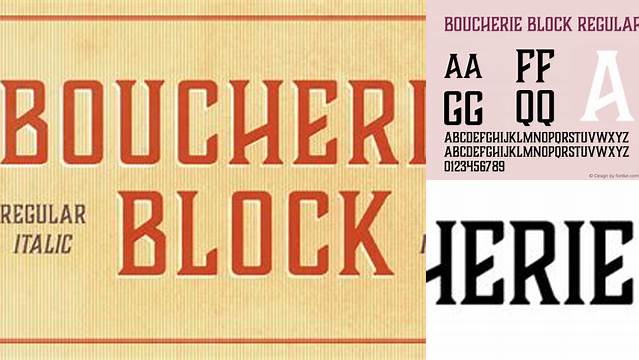
Boucherie Block: Your Free Font Guide!
Hey guys! Ever stumbled upon a font that just clicks? That's how I felt when I first saw Boucherie Block. It's bold, it's versatile, and the best part? You can often find a regular version for free! Let's dive into everything Boucherie Block, from its uses to where you can snag it without breaking the bank. Get ready to level up your design game!
Boucherie Block Font Family
The Boucherie Block font family is more than just a single typeface; it's a carefully crafted collection designed to offer versatility and visual impact. Each member of the family brings its own unique flavor to the table, allowing designers to choose the perfect style for their specific needs. Think of it as a complete toolkit for typography.
Weights and Styles
Within the Boucherie Block family, you'll typically find a range of weights, from light and regular to bold and extra bold. This variety allows you to create visual hierarchy and emphasis within your designs. Imagine using the light weight for body text in a brochure and the bold weight for headlines – instantly, you've created a dynamic and engaging layout. Beyond weights, you might also encounter different styles like italic or condensed versions, further expanding your creative options. For example, the italic style can add a touch of elegance or urgency, while the condensed version is perfect for fitting more text into a limited space.
Design Applications
The versatility of the Boucherie Block font family makes it suitable for a wide array of design applications. Its strong and legible letterforms are ideal for branding projects, where consistency and impact are key. Picture a logo using Boucherie Block – it immediately conveys a sense of confidence and reliability. In print design, the font shines in posters, brochures, and magazines, commanding attention and ensuring readability. Online, Boucherie Block works well for headlines, banners, and even body text (depending on the weight and style chosen). Its clean lines and distinct character make it a great choice for websites, social media graphics, and email marketing campaigns.
Combining with Other Fonts
While Boucherie Block can certainly stand on its own, pairing it with other fonts can create even more visually appealing and balanced designs. When choosing a complementary font, consider the overall aesthetic you're aiming for. For a classic and sophisticated look, try pairing Boucherie Block with a serif font like Times New Roman or Garamond. The contrast between the strong, sans-serif Boucherie Block and the elegant serifs will create a visually interesting juxtaposition. If you're going for a more modern and minimalist vibe, consider pairing it with a clean and simple sans-serif font like Open Sans or Lato. The key is to find a font that complements Boucherie Block without overpowering it, allowing each typeface to shine in its own right. Experimentation is key – don't be afraid to try different combinations until you find one that resonates with your design vision.
Using Boucherie Block Regular in Your Designs
So, you've got your hands on a free Boucherie Block regular font. Awesome! Now, let's talk about how to make the most of it in your designs. This font is a workhorse, but knowing its strengths will help you create truly stunning visuals.
Logos and Branding
Boucherie Block Regular is a fantastic choice for logos and branding because it exudes confidence and clarity. Its bold, geometric letterforms make a strong statement, conveying a sense of reliability and professionalism. When using it in a logo, consider the overall message you want to communicate. For a tech startup, the font's modern aesthetic can evoke innovation and forward-thinking. For a traditional business, its sturdy structure can symbolize stability and trustworthiness. Experiment with different weights and styles to find the perfect balance. You might use the regular weight for the main logo and a bolder weight for taglines or subheadings. Pay attention to the kerning and letter spacing to ensure optimal readability and visual appeal. A well-designed logo using Boucherie Block Regular can create a lasting impression and help your brand stand out from the competition.
In conclusion, choosing the right font is crucial to your designs, and Boucherie Block Regular is a versatile option. Consider your specific project requirements, explore different font combinations, and learn about typography to create unique and effective designs. Always remember to respect font licenses and use fonts responsibly. If you need to improve your designs, take time to experiment, practice, and seek feedback. With a little patience and creativity, you can create visually appealing and impactful designs that will impress your audience. Happy designing!